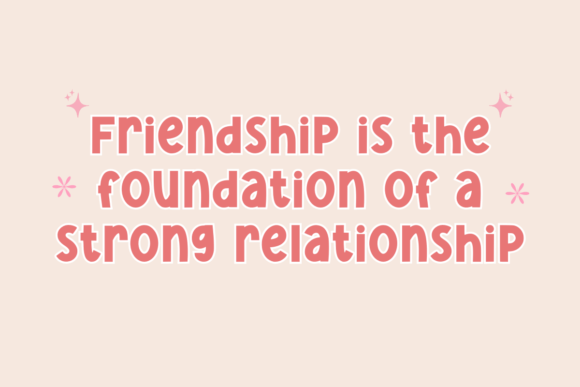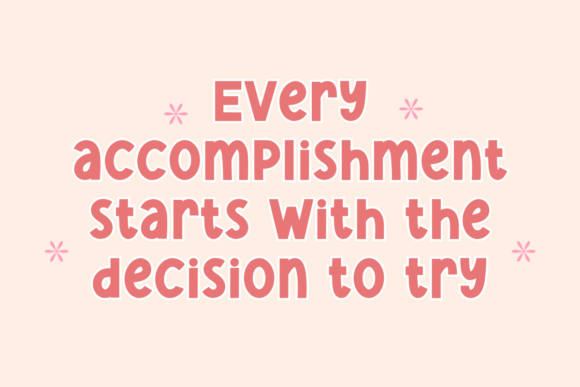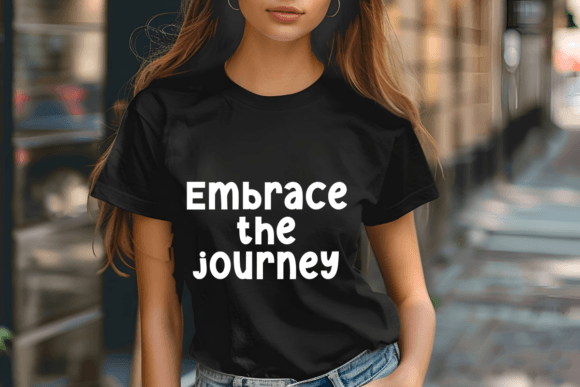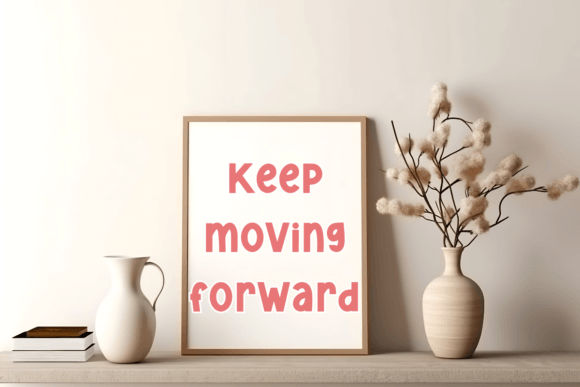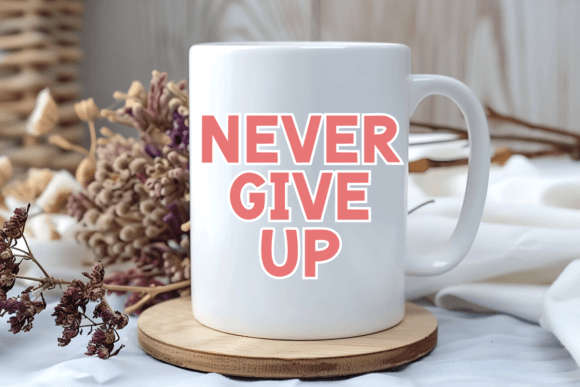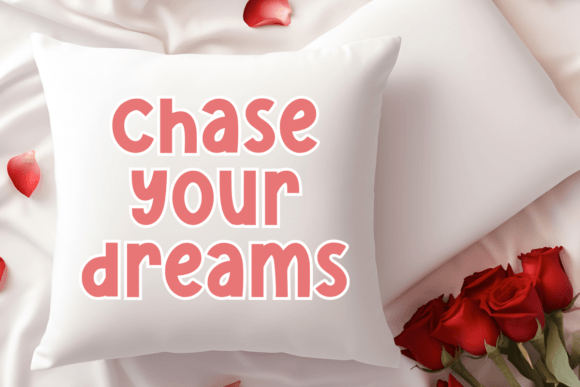
The Perfect Font to Bring Your Designs to Life
You know that moment when you’re brainstorming ideas and everything just clicks? You’re scrolling through your favorite design inspiration boards, and suddenly, a spark of creativity hits you. You can envision the perfect project, but you’re missing one crucial element: the perfect font. That’s where the Awesome Shining Font comes in – a sweet and friendly display font that’s sure to elevate your designs to the next level.
Designed to be versatile and adaptable, the Awesome Shining Font is the perfect addition to any project. Whether you’re working on a children’s book, a wedding invitation, or a social media campaign, this font is sure to shine. With its natural and unique style, the Awesome Shining Font is incredibly valuable for designers looking to add a touch of personality to their work.
Awesome Shining Font Key Features
- Unique Characteristic: The font features a unique ‘shining’ effect, achieved through advanced font rendering techniques, which adds a touch of elegance and sophistication to any design.
Awesome Shining Font Review
At first glance, Awesome Shining Font seems like a game-changer. Its ✨ vibrant aesthetic immediately grabs attention and could be a great choice for titles, headings, or any text that needs to stand out. The font is highly customizable, offering a wide range of color options, sizes, and styles. This versatility makes it a great choice for various design projects.
However, as I dug deeper, I encountered some limitations. The font is not optimized for smaller screen sizes, which can lead to a pixelated appearance on mobile devices. This might not be a deal-breaker for some projects, but it’s definitely something to consider. Additionally, the font’s ✨ shining effect can be overwhelming if not used judiciously. It’s essential to balance the design to avoid visual fatigue.
Pros and Cons:
- ✨ Highly customizable with various color and size options
- Perfect for titles, headings, and attention-grabbing text
- Not optimized for smaller screen sizes
- Shining effect can be overwhelming if not used judiciously
Overall, Awesome Shining Font is a great choice for designs that require a bold and attention-grabbing aesthetic. However, it’s essential to weigh the pros and cons before deciding to use it. With some careful consideration, this font can be a valuable addition to your design toolkit.
Some tips for getting the most out of Awesome Shining Font include:
- Using it for headings and titles to add a touch of elegance.
- Pairing it with other fonts to create a unique and modern look.
- Using it for graphics and logos to add a sense of sophistication.